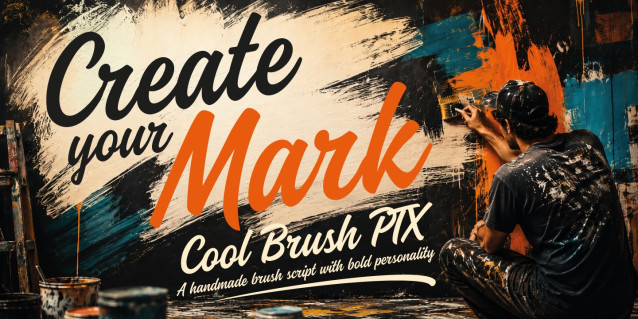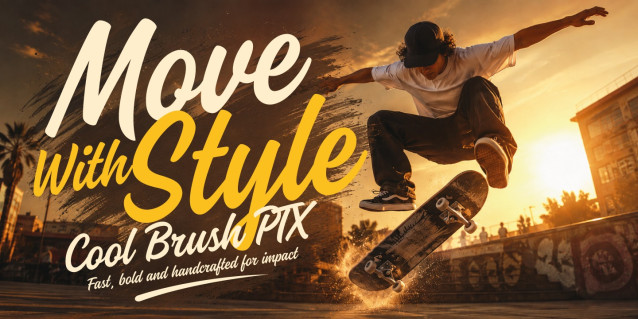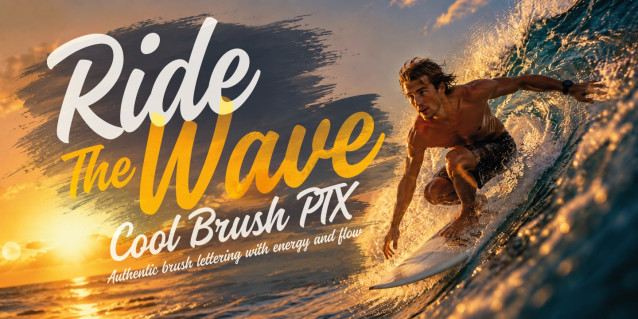
Cool Brush PTX Font
Cool Brush PTX Font is an energetic handwritten brush script by Pedro Teixeira Foundry, inspired by fast brush lettering and spontaneous hand-painted signs. Its expressive rhythm is ideal for logos, headlines, posters, apparel graphics, packaging, album artwork, sports branding and social media campaigns. Use the live tester to preview your own words before selecting the license that fits your project.